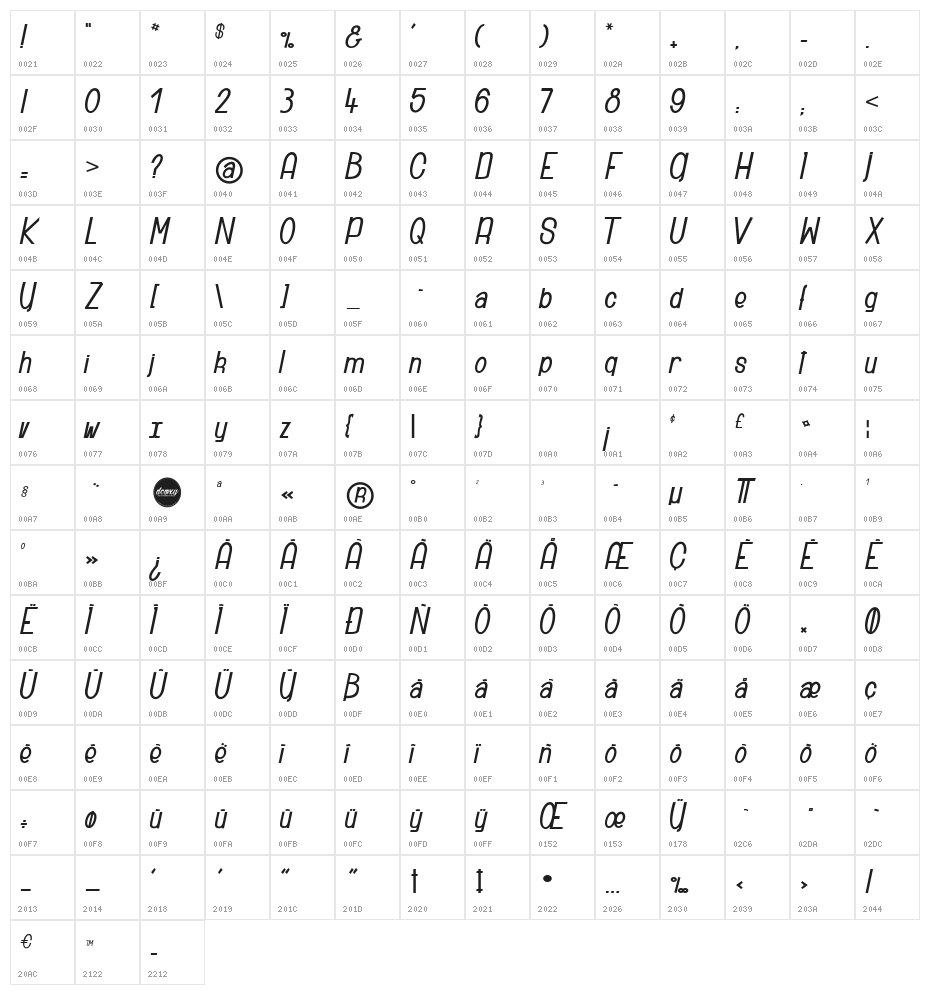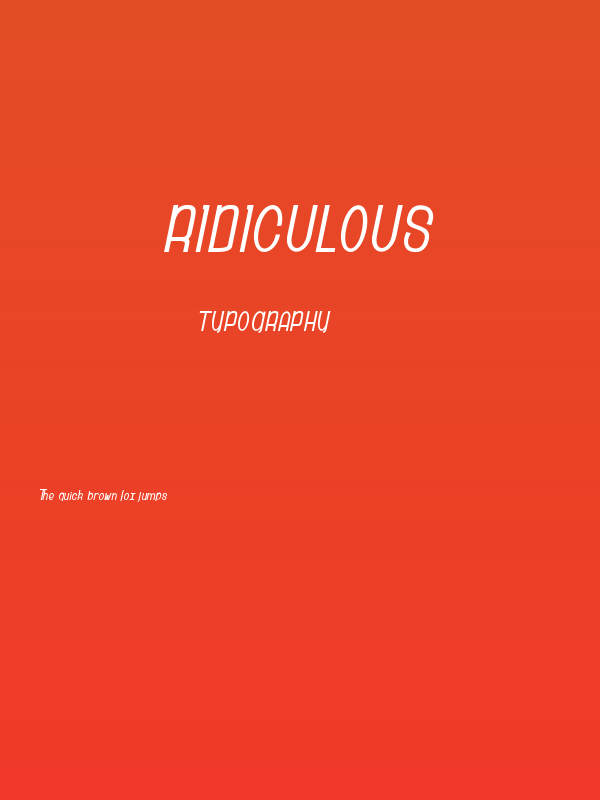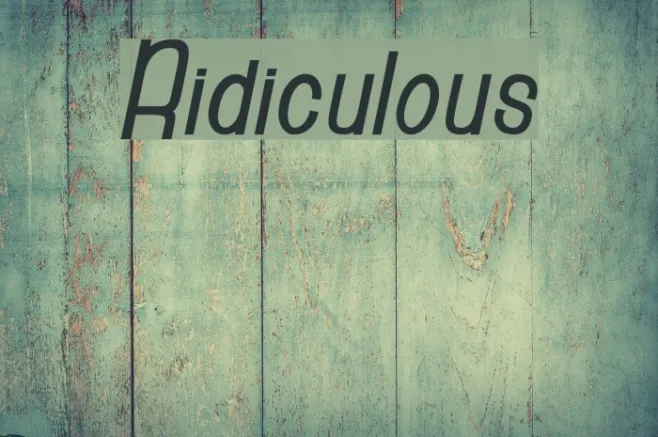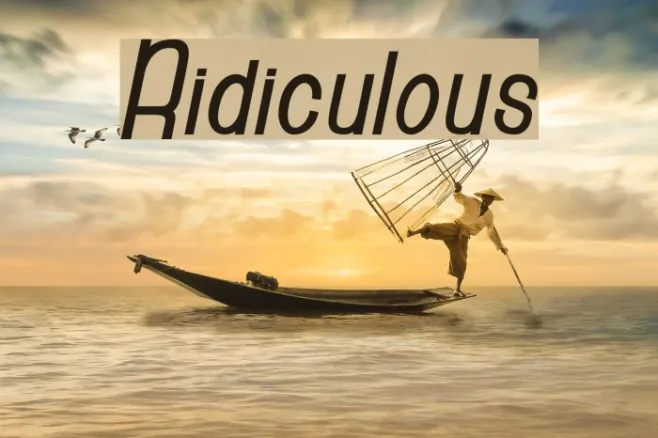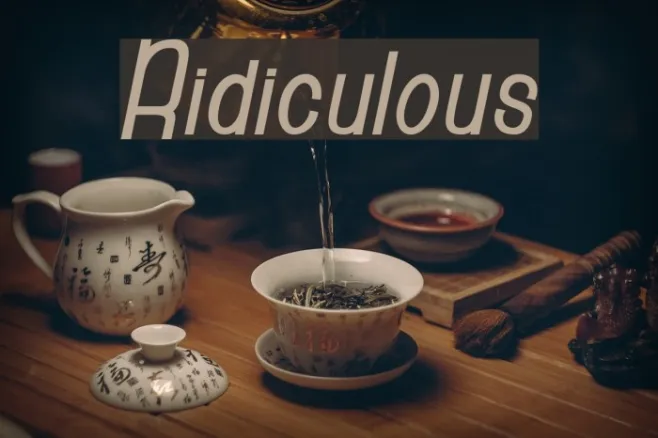
Ridiculous Font
Ridiculous Description
This font features a dynamic and modern design with a slight italic slant, giving it a sense of motion and energy. The characters are sleek and elongated, with a consistent stroke width that maintains clarity and readability. The uppercase letters are bold and commanding, while the lowercase letters maintain a cohesive flow with their slightly rounded edges. The numerals are clear and distinct, matching the overall style of the font. Special characters are well-integrated, maintaining the font's modern aesthetic. This font is versatile, suitable for both digital and print media, and can be used to convey a contemporary and professional look.
| Use Case | Headlines, Logos, Advertising |
| Proposed Projects | Ideal for branding, advertising, and editorial design projects that require a modern and dynamic appearance. |